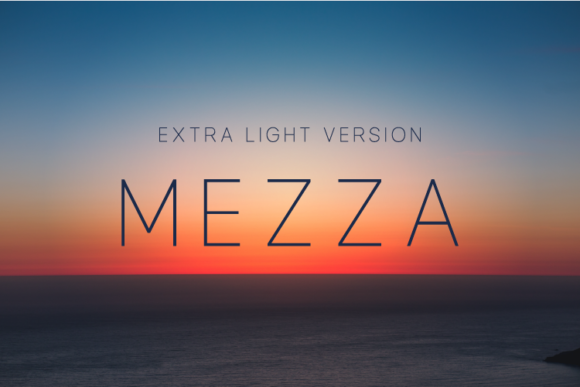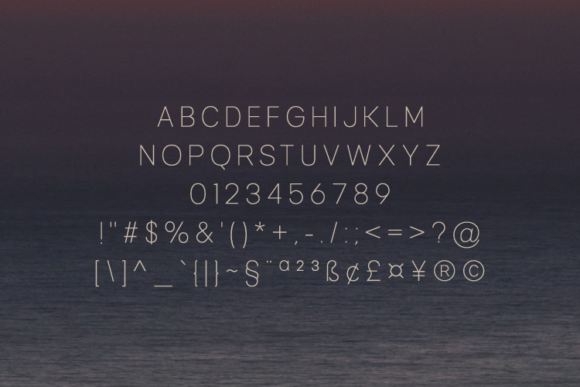
Mezza Extra Light Font
About Mezza Extra Light Font
Mezza is a romantic, timeless, and minimalistic all caps sans serif font that looks stunning in any context. With its minimalist appeal, it’s perfect for magazine layouts, invitations, headers, or even large-scale artworks.